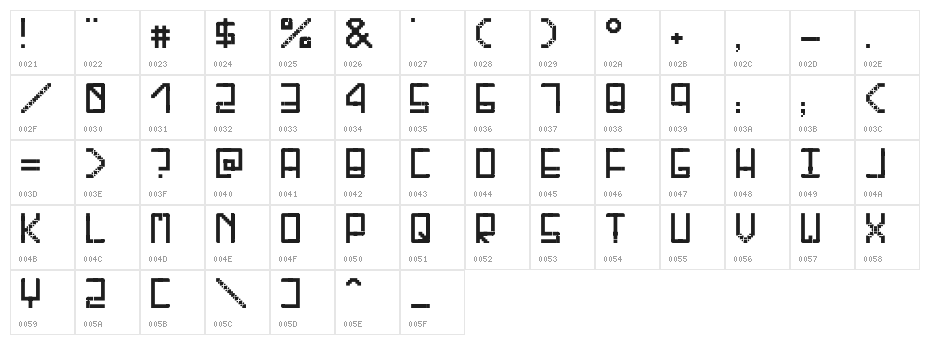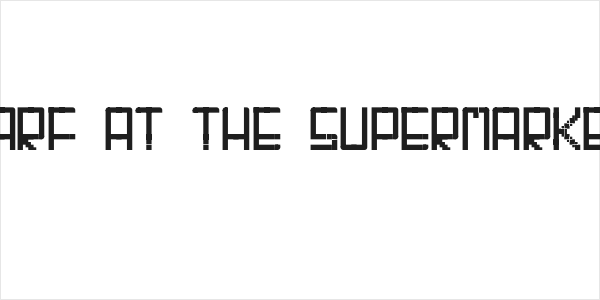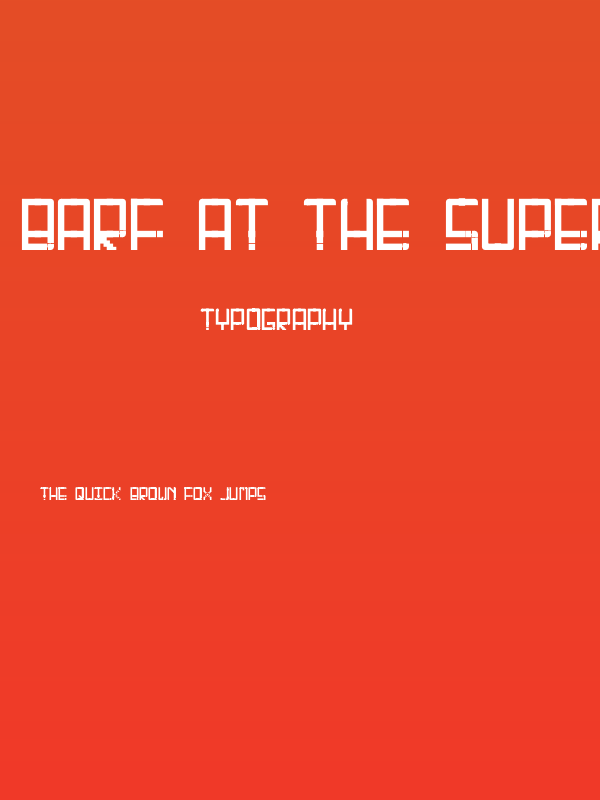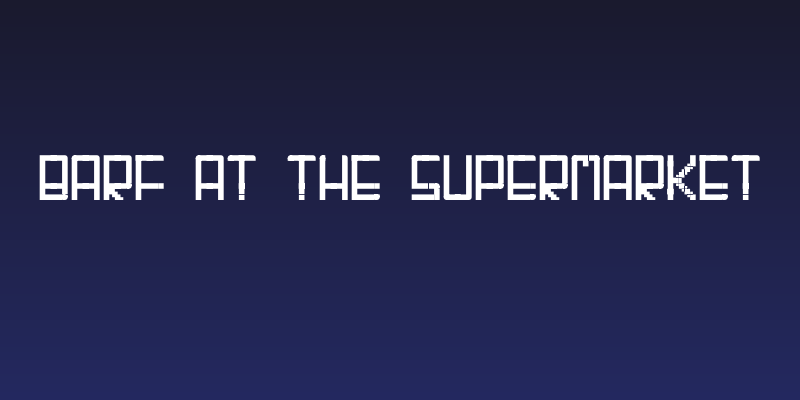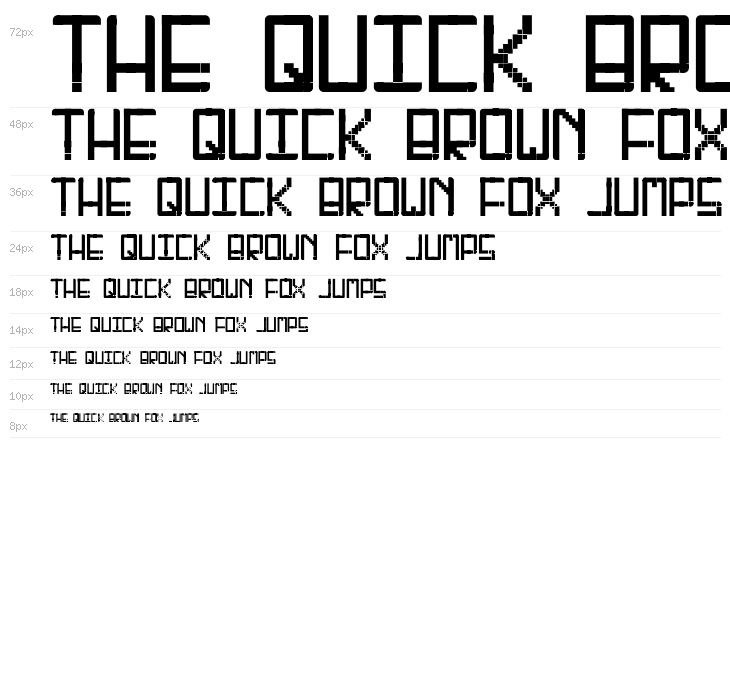
Barf At The Supermarket Font
Barf At The Supermarket Description
This font features a pixelated, grid-like structure reminiscent of early digital displays or retro video games. Each character is composed of square blocks, giving it a distinctly digital and geometric appearance. The uppercase and lowercase letters maintain a consistent height, with minimal differentiation between the two, emphasizing a monospaced style. Numbers and special characters follow the same blocky design, ensuring uniformity across all glyphs. The font's rigid and mechanical look makes it ideal for projects that aim to evoke a sense of nostalgia or a technological theme.
| Overall Style | Retro, Digital |
| Use Case | Logos, Posters, Digital Art |
| Proposed Projects | Ideal for retro video game designs, digital art projects, tech-themed posters, and any creative work that requires a nostalgic digital look. |